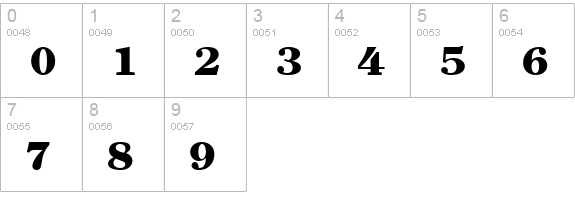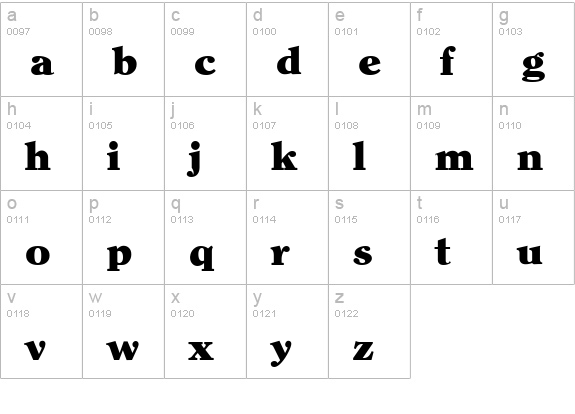
ClearlyRomanHeavy Regular Font Details
ClearlyRomanHeavy Regular is the standard, neutral variant in the ClearlyRomanHeavy typeface family \xE2\x80\x94 well suited to general body text, paragraphs, and standard typographic work.
ClearlyRomanHeavy Regular is a robust and authoritative typeface designed to make a bold statement. Its strong and clear letterforms exude confidence and professionalism, making it ideal for headlines, titles, and other attention-grabbing text. With its timeless appearance and distinctive character, ClearlyRomanHeavy Regular commands attention and leaves a lasting impression. Best of all, ClearlyRomanHeavy Regular is available for free download at FontsMarket.com. This means you can easily incorporate this striking font into your designs without any cost. Whether you're working on a project that requires a strong and impactful typeface or simply looking to add some flair to your designs, ClearlyRomanHeavy Regular is the perfect choice. Download it today and elevate your typography game!